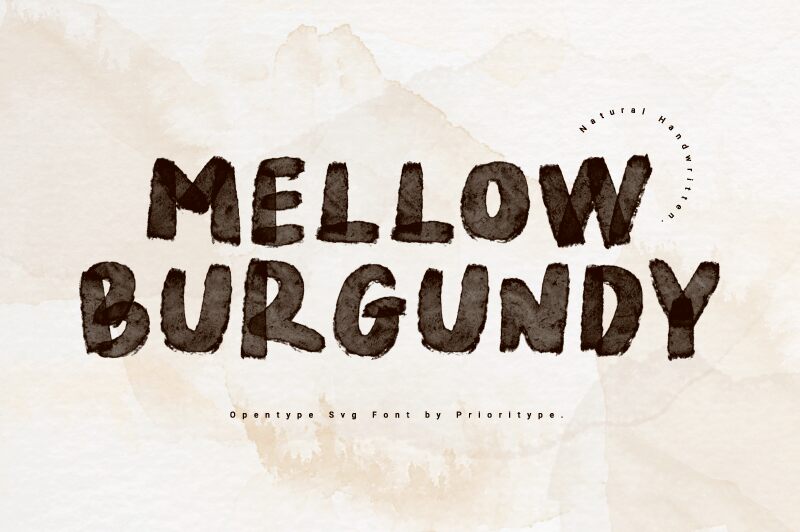
Introducing Mellow Burgundy, a bold chalk font designed by Prio Nurokhim Aji. Perfect for projects seeking a vintage, handmade look, this font is great for signage, restaurant menus and social media posts.
Mellow Burgundy